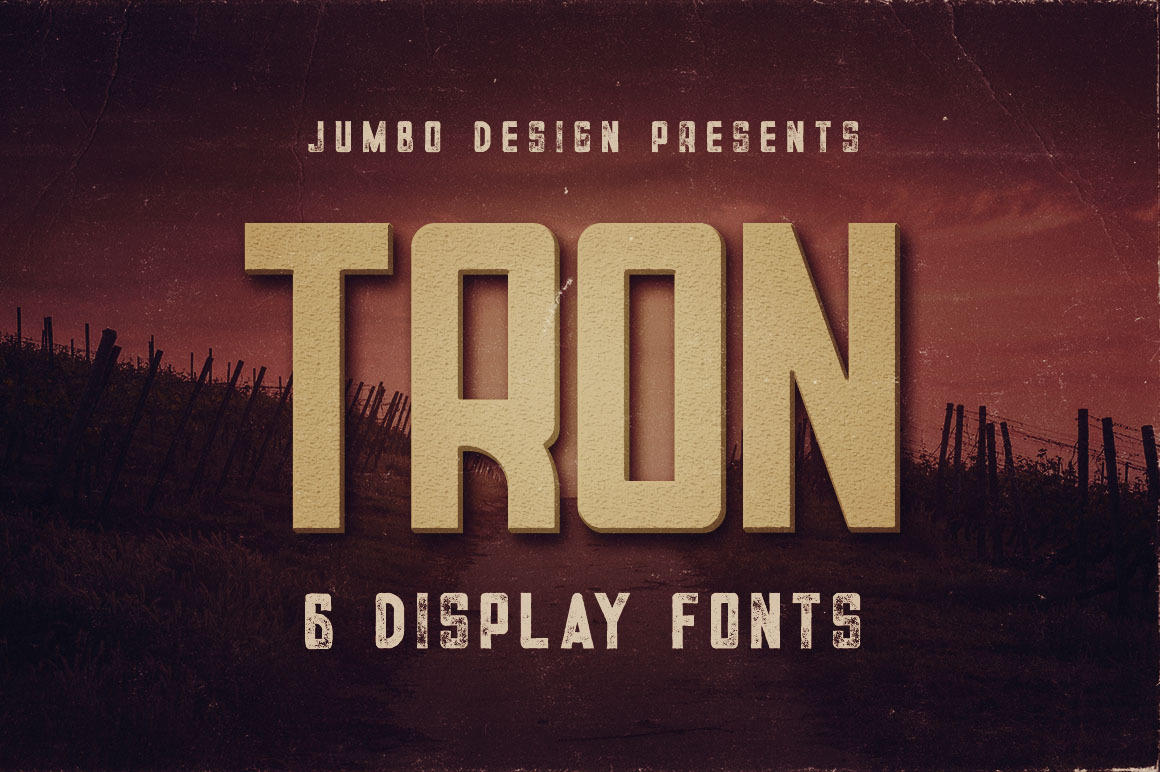
Tron - Display Font
Unique bold, retro or modern style custom font with 6 styles: regular and grunge, inline bold and inline bold grunge, bold & bold grunge!